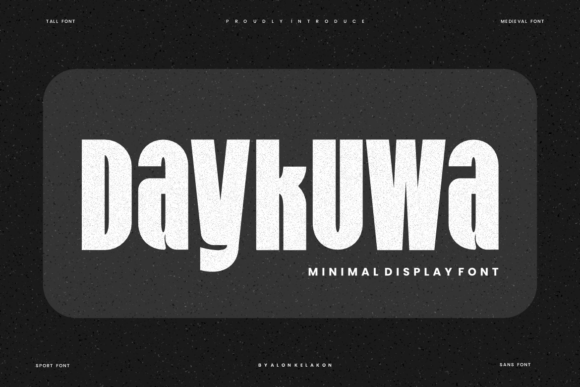
Unlock Your Creativity with the Power of Daykuwa Font
Have you ever stared at a blank page, waiting for the perfect idea to strike? The blank canvas can be intimidating, but what if you had the right tools to spark your creativity? That’s where the Daykuwa Font comes in – a bold and assertive sans serif font that can elevate any creation and give you the confidence to bring your vision to life.
This versatile font is designed to tackle any topic, from sleek and modern designs to bold statements. Whether you’re a seasoned designer or just starting out, Daykuwa Font is an incredible asset to add to your library. Its versatility and assertive style make it a valuable tool for designers looking to make a lasting impression.
Key Features of “Daykuwa Font”
- Font Family: Daykuwa Font is a typeface that comes in a range of weights and styles, including Regular, Bold, Italic, and Bold Italic.
- Unique Characteristics: Daykuwa Font features a unique blend of traditional and modern elements, with intricate details and subtle flair that sets it apart from other sans-serif fonts.
Daykuwa Font Review
As a designer, I was excited to dive into the Daykuwa Font, and I must say it’s been a mixed bag for me.
The Daykuwa Font has a unique and elegant feel to it, which I appreciate. The font is well-suited for creative and artistic projects where you want to convey a sense of sophistication.
- Wide range of languages supported
- Great for use in digital and print media
- Comes in various weights and styles
While I love the unique feel of the Daykuwa Font, it does have some limitations that might make it less versatile for some projects.
- May not be the best choice for body text due to its formal tone
- Could benefit from more contextual pairing options
- May not be as readable at smaller font sizes
Overall, I think the Daykuwa Font is a solid choice for designers looking for a unique and elegant font. While it may not be the best fit for every project, it’s definitely worth considering for the right type of design.
Tips for Getting the Most Out of Daykuwa Font
Daykuwa Font is ideal for creative projects, such as:
- Graphic novels and comic books
Remember to pair Daykuwa Font with other creative elements, such as illustrations and graphics, to create visually appealing designs.